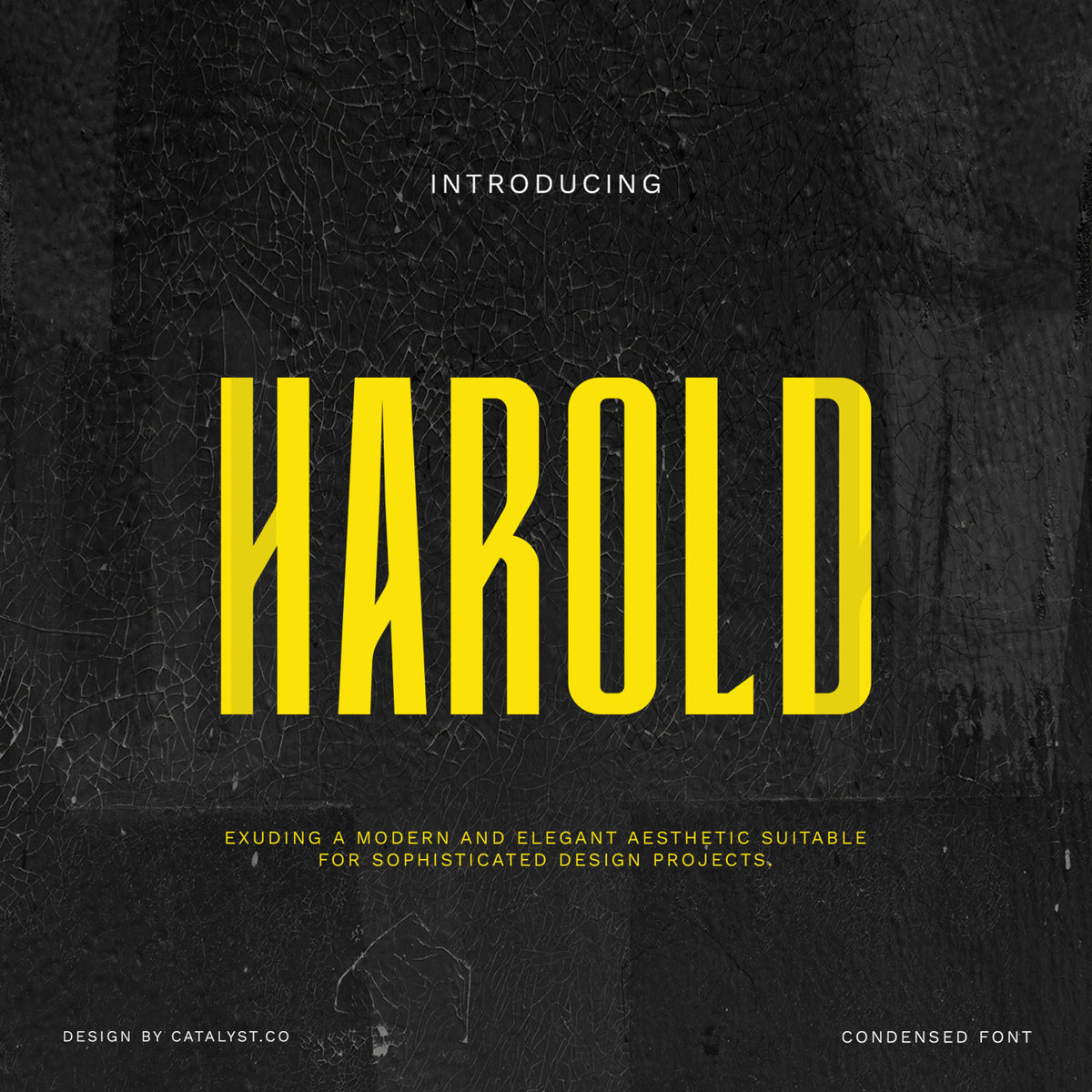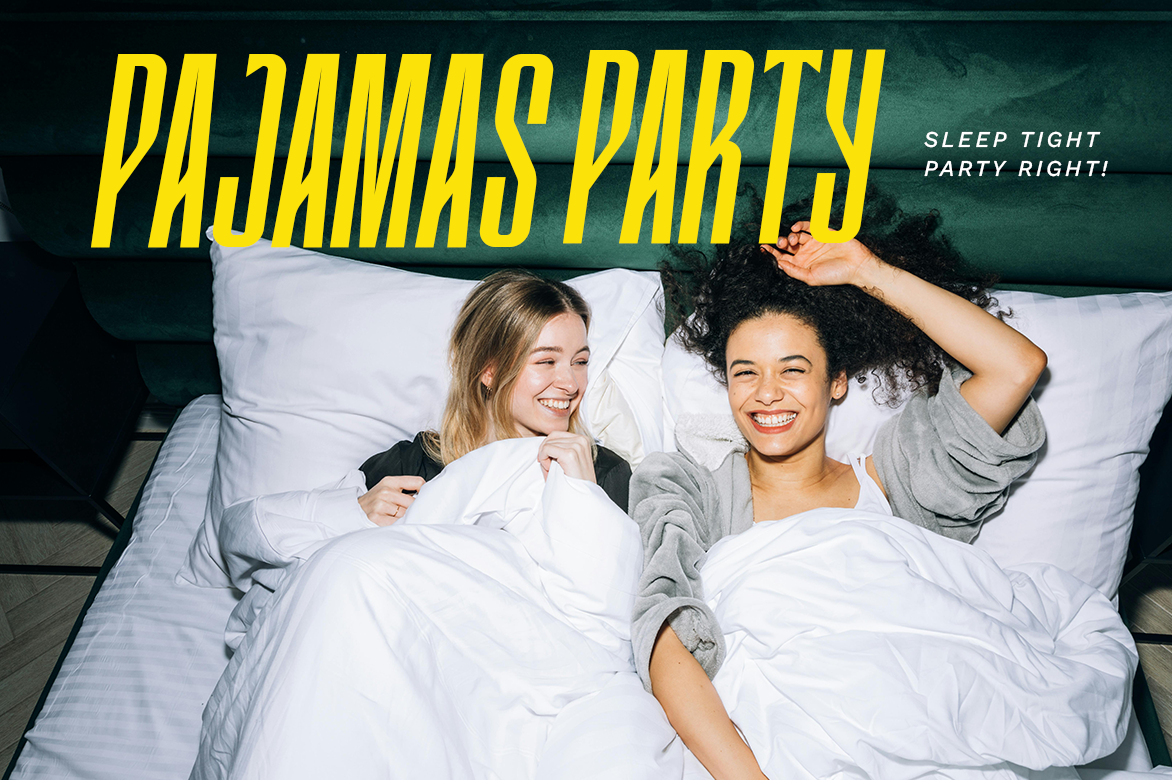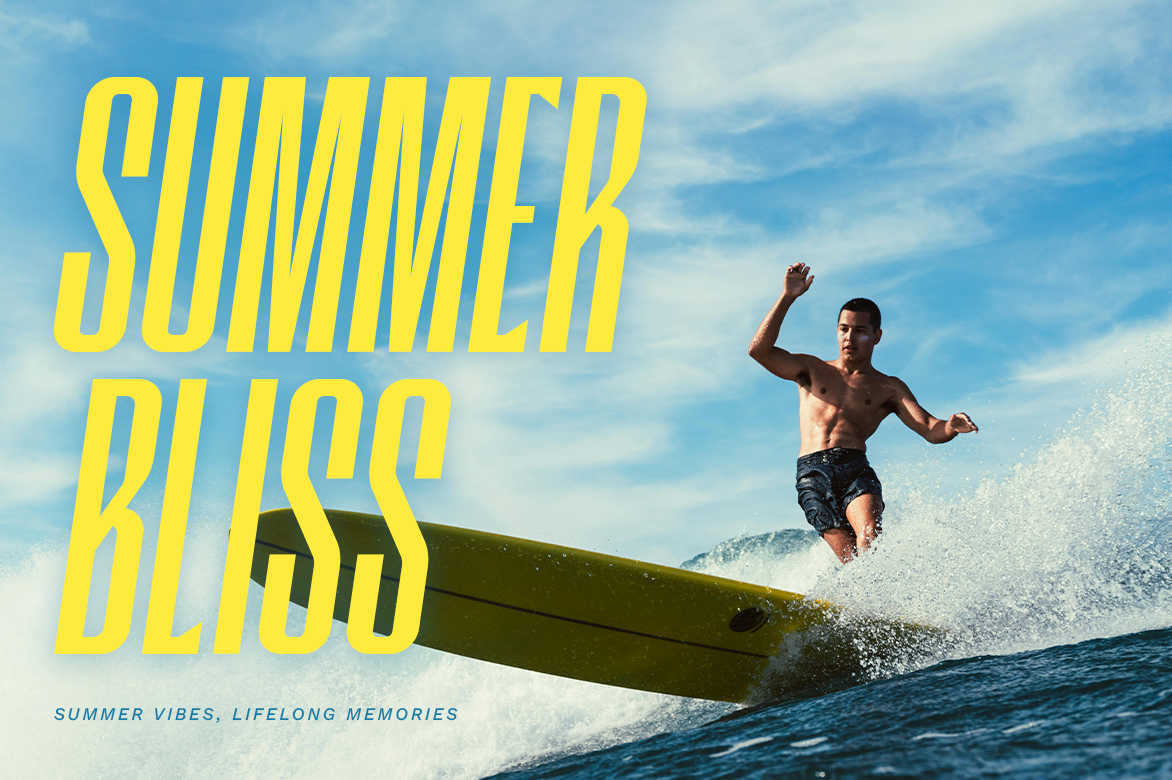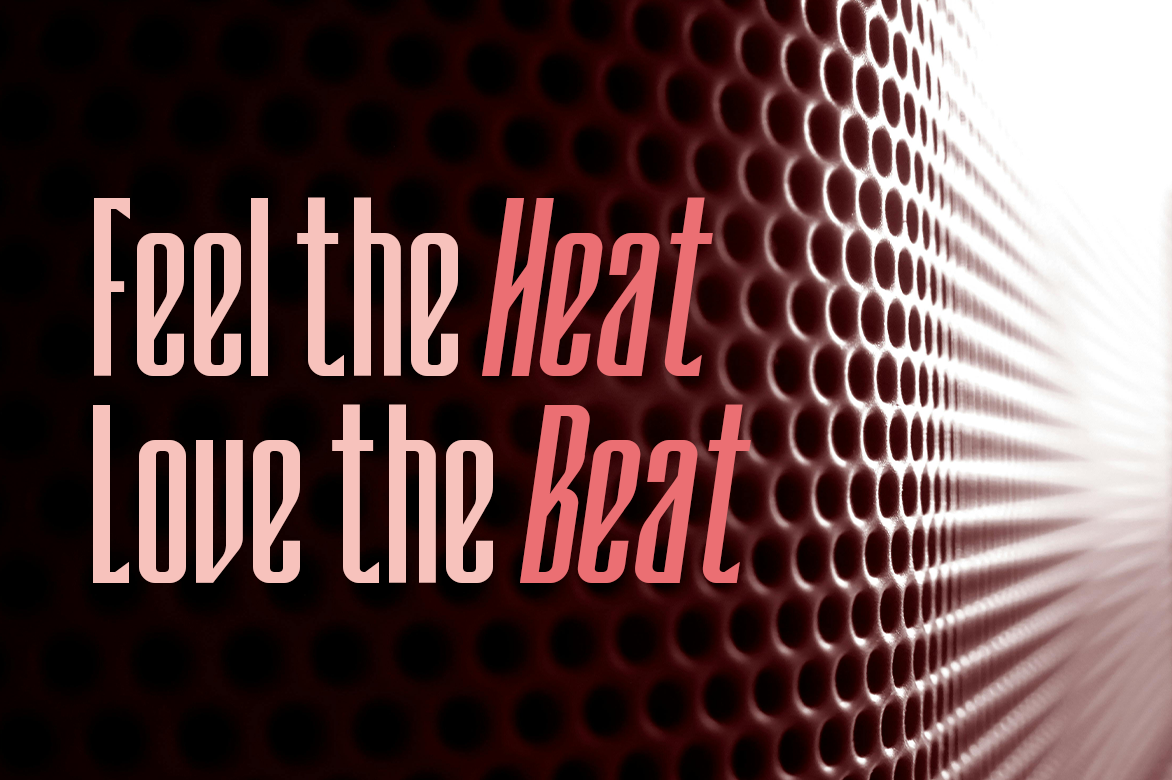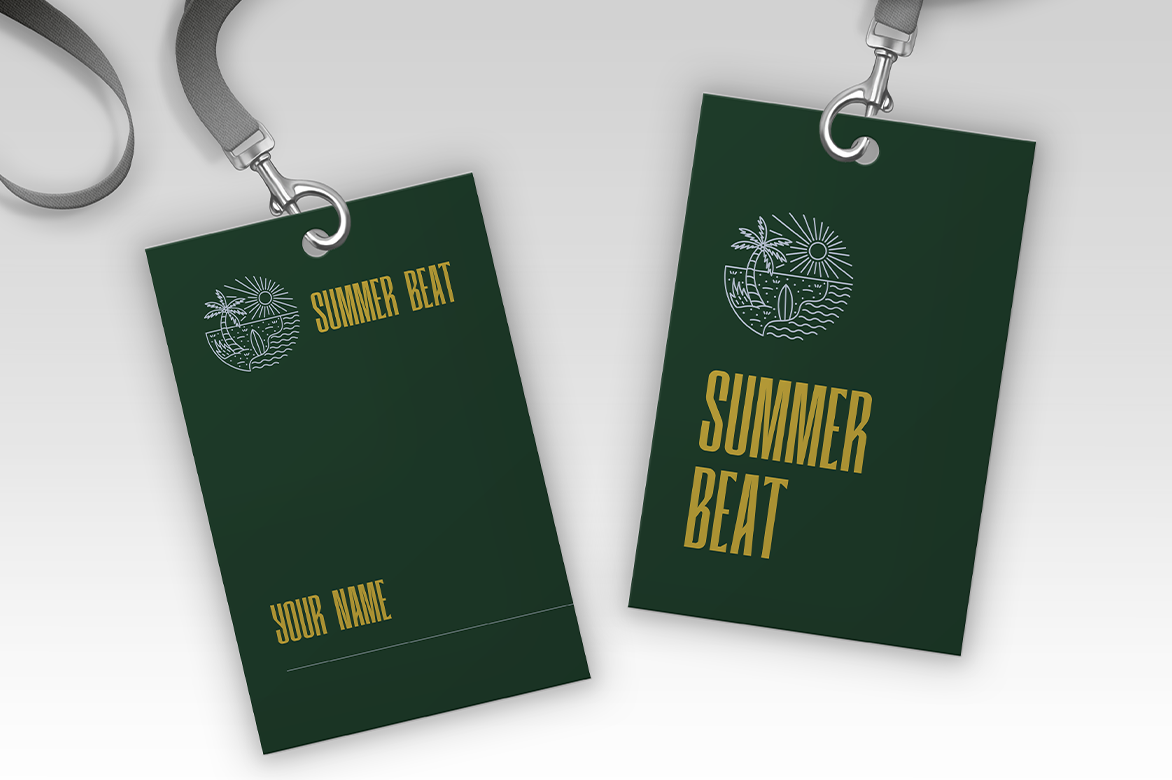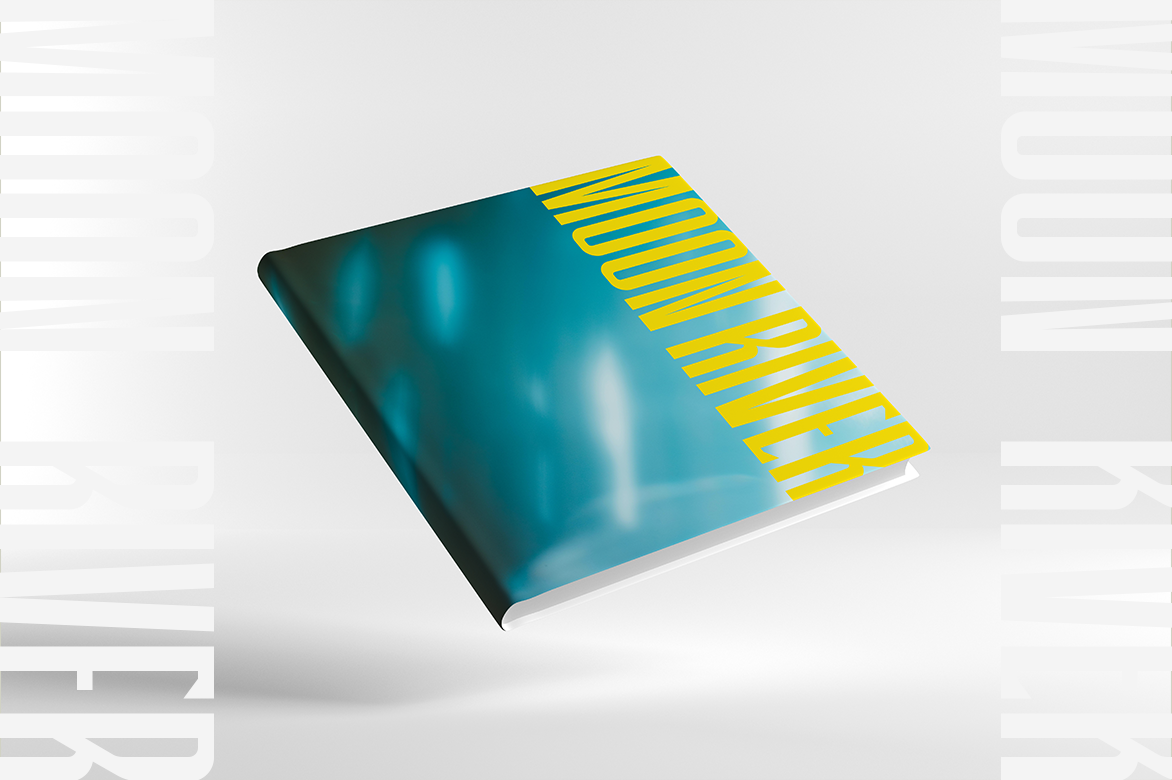
Harold Modern Condensed Font
Harold is a tall condensed display font with an elegant yet distinctive geometric character. Its uppercase letterforms are built with extremely narrow proportions, elongated vertical stems, and strong, controlled shapes that create a refined editorial silhouette. The letterforms feature subtle tapered cuts and angular transitions, particularly visible in characters such as A, H, R, and D, adding visual personality while maintaining a clean and sophisticated structure. Its compact width allows the typography to feel commanding without requiring excessive horizontal space.
Relevance and Use Case is perfect for design projects that require tall, narrow typography with a sophisticated editorial presence. Its elongated proportions and refined geometric details make it suitable for fashion branding, magazine covers, luxury campaigns, posters, advertising, packaging, event identities, logos, editorial layouts, social media graphics, and premium product presentations. The condensed construction is especially useful for large uppercase headlines, stacked compositions, narrow layouts, and visual identities where typography needs to create a strong presence while retaining an elegant appearance.
Harold Modern Condensed Font is a tall, narrow display typeface featuring uppercase and lowercase letterforms with tapered cuts and angular transitions. It includes ligatures, alternates, numerals, punctuation, and multilingual support, and is available in TTF, OTF, and WOFF formats.